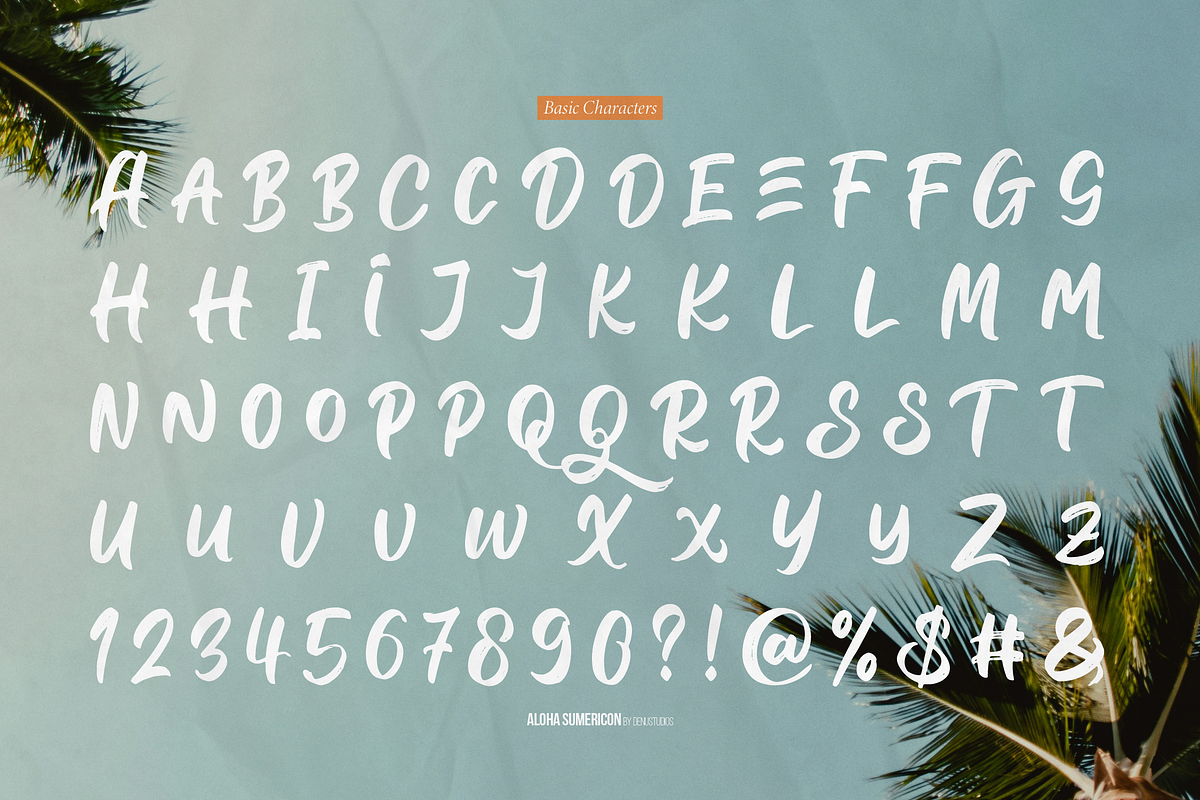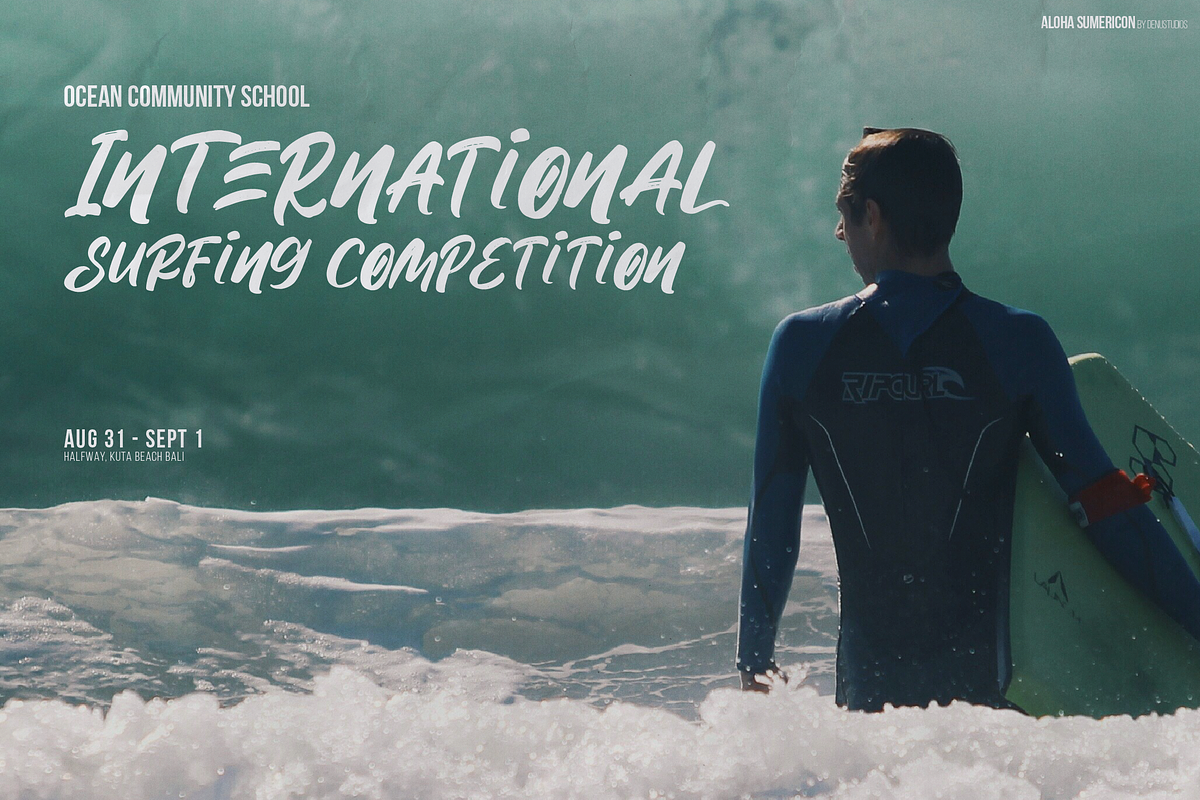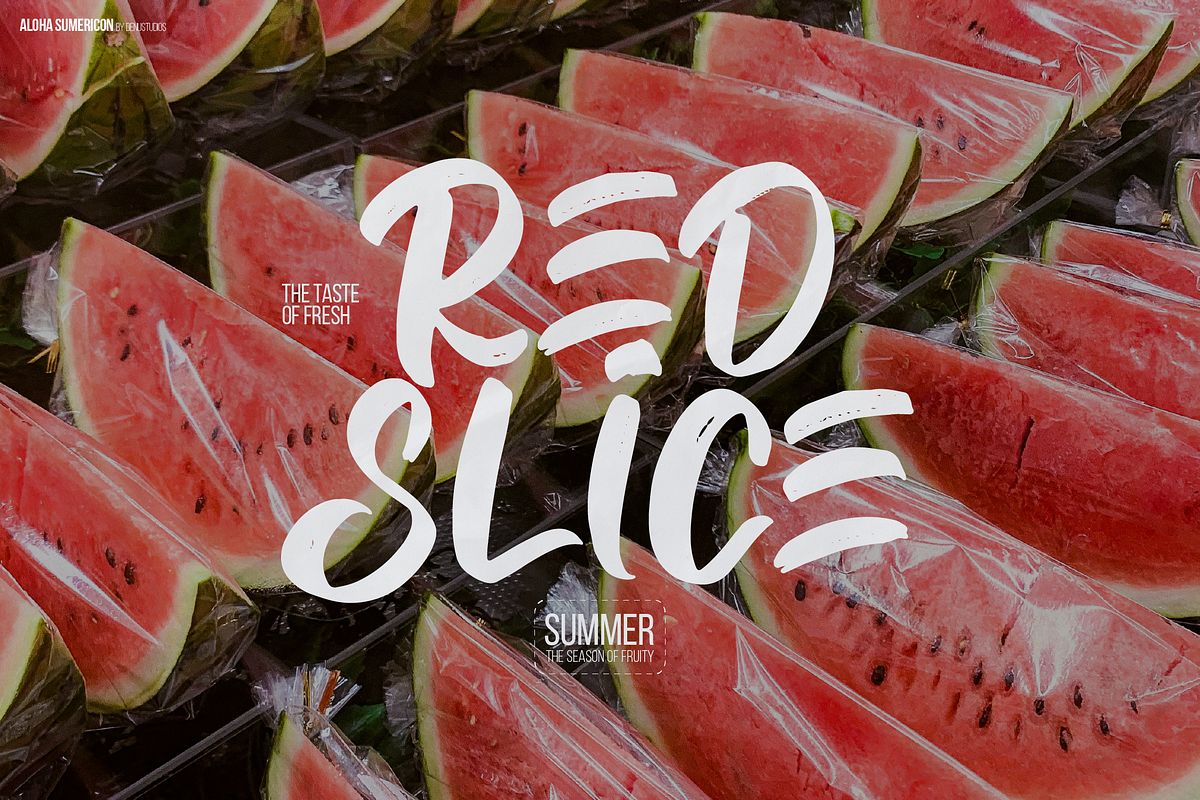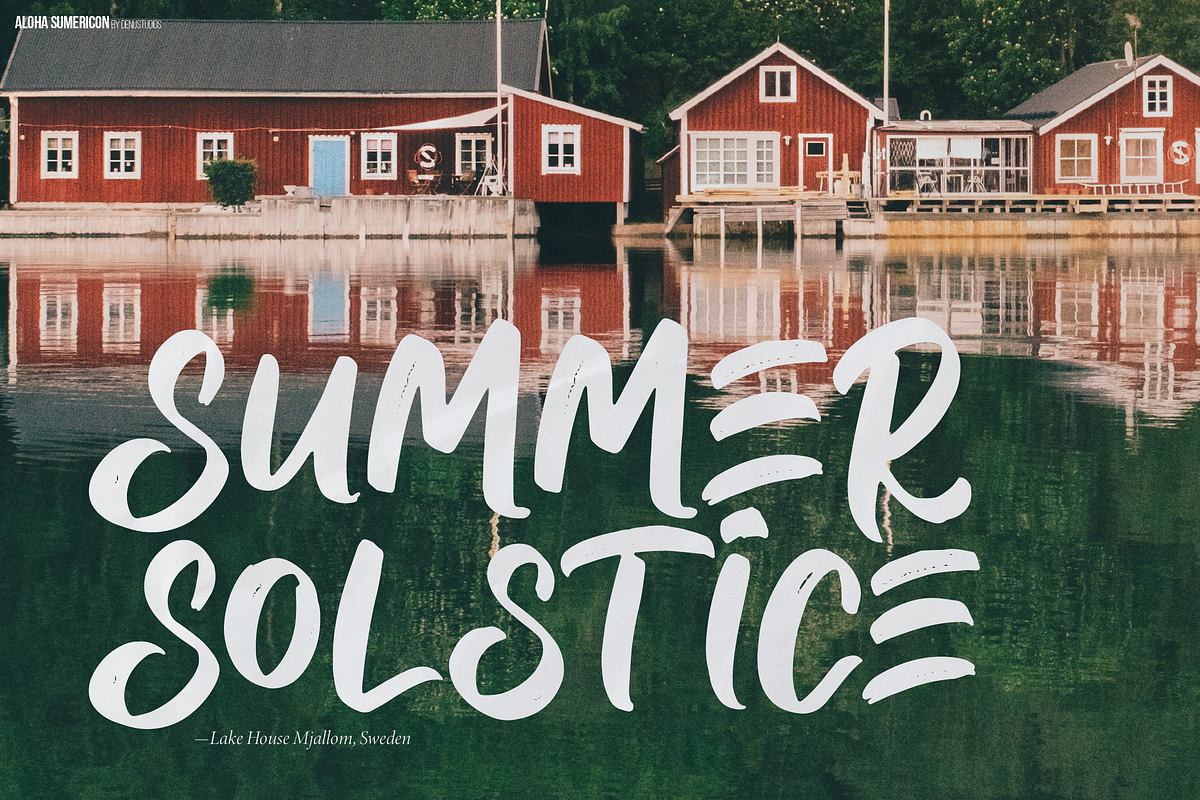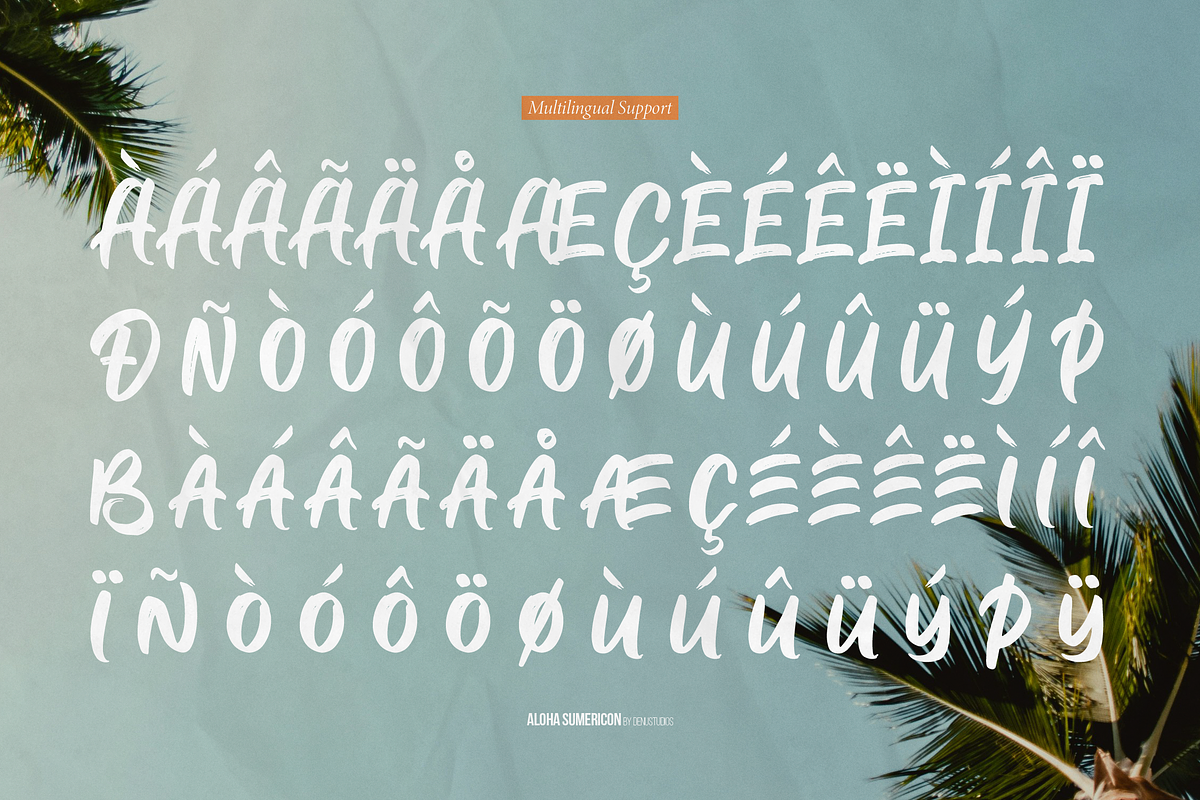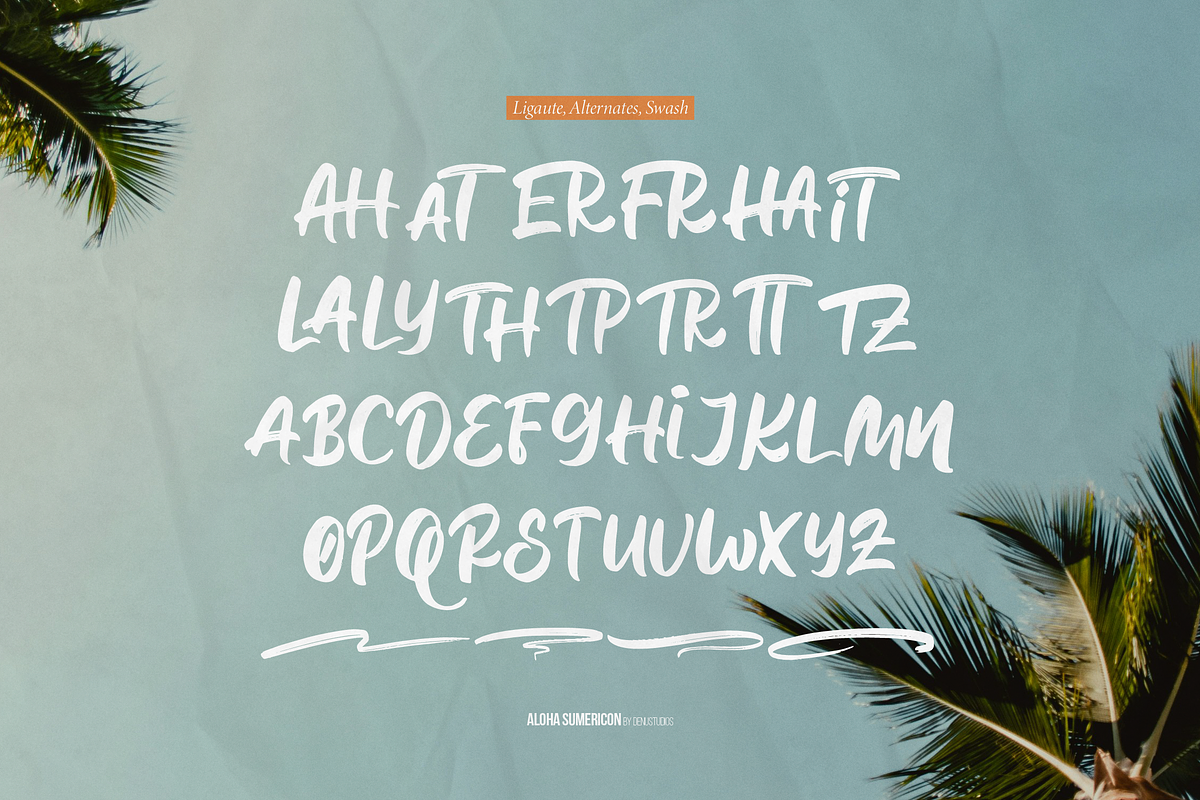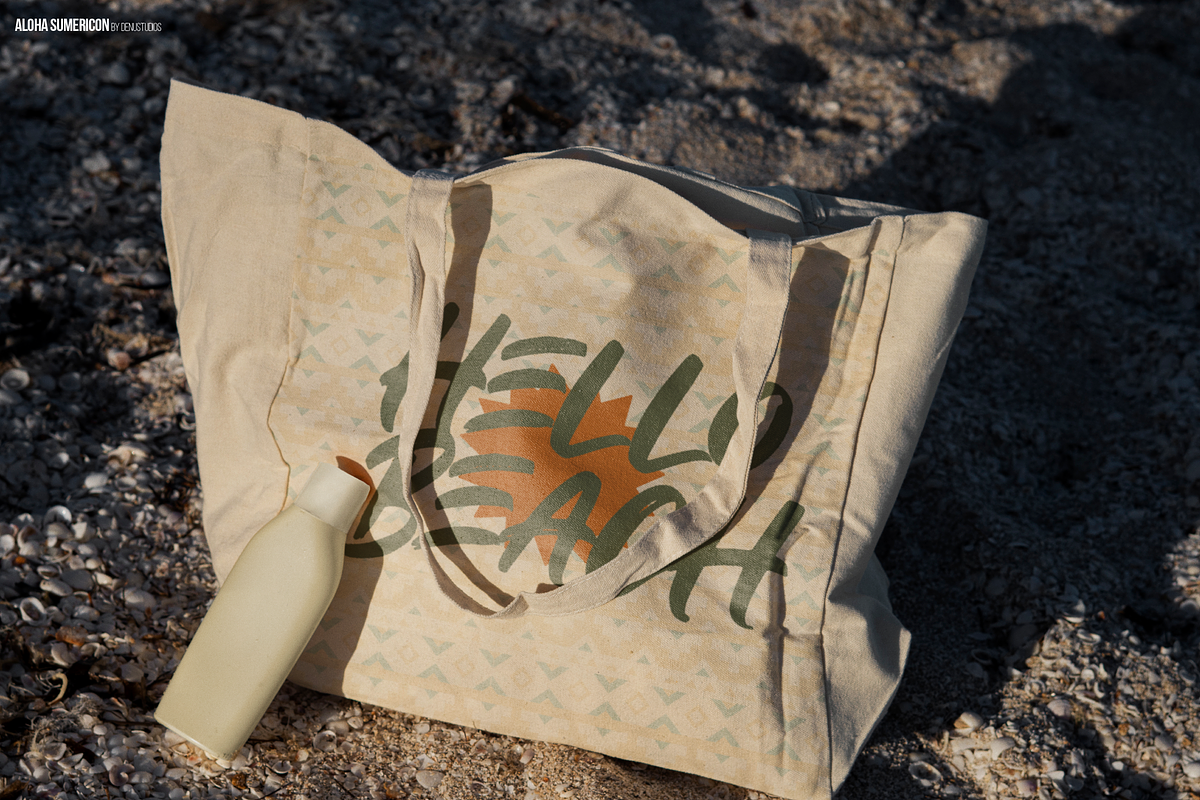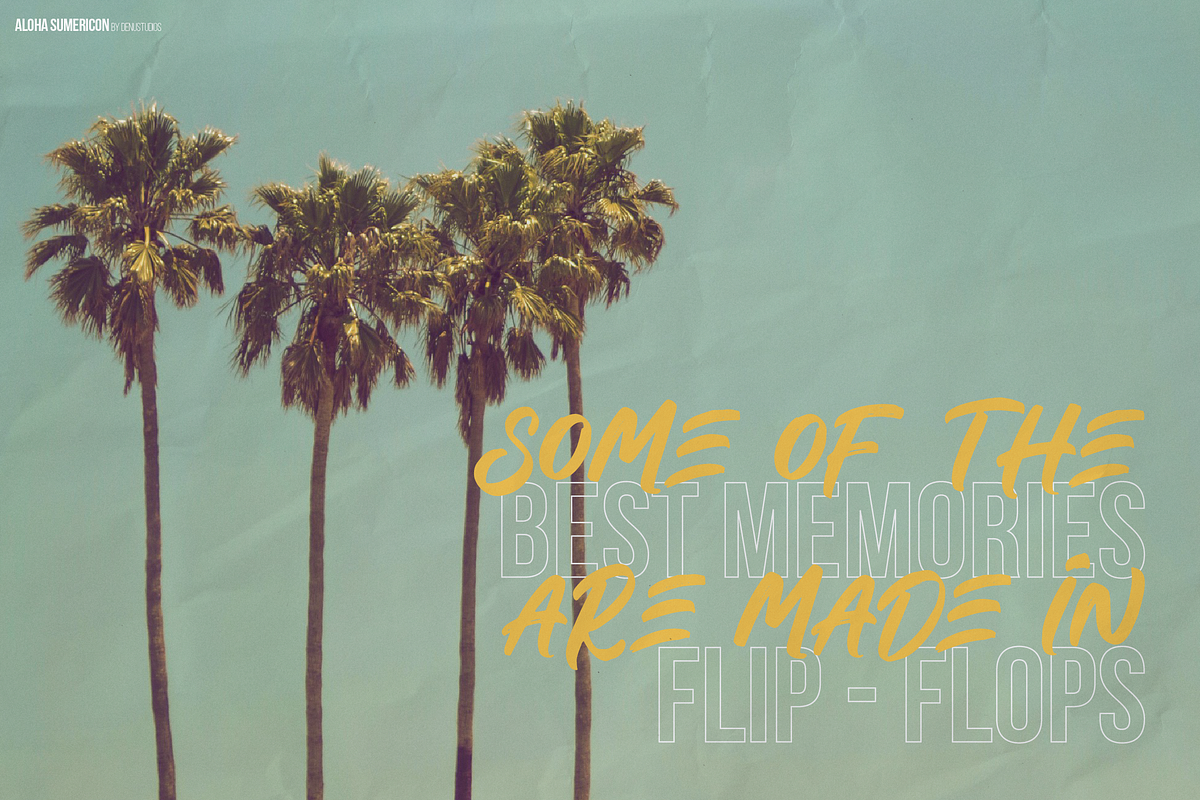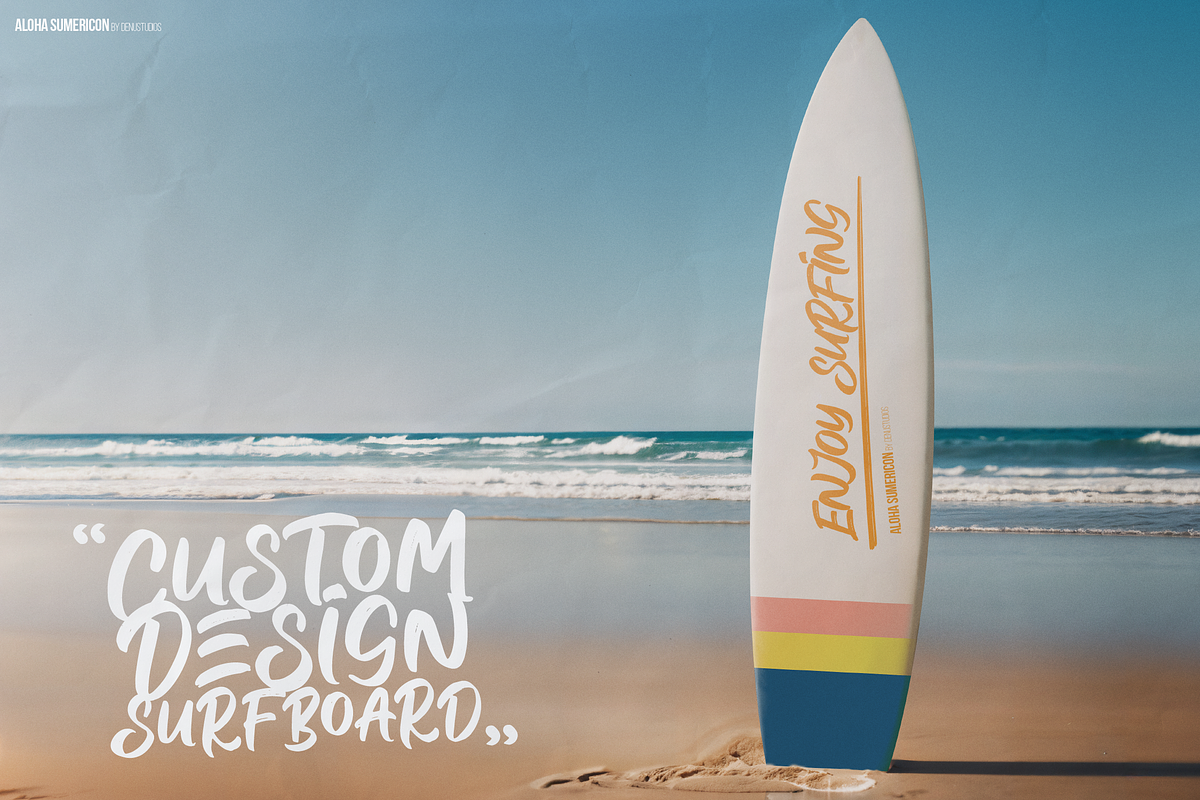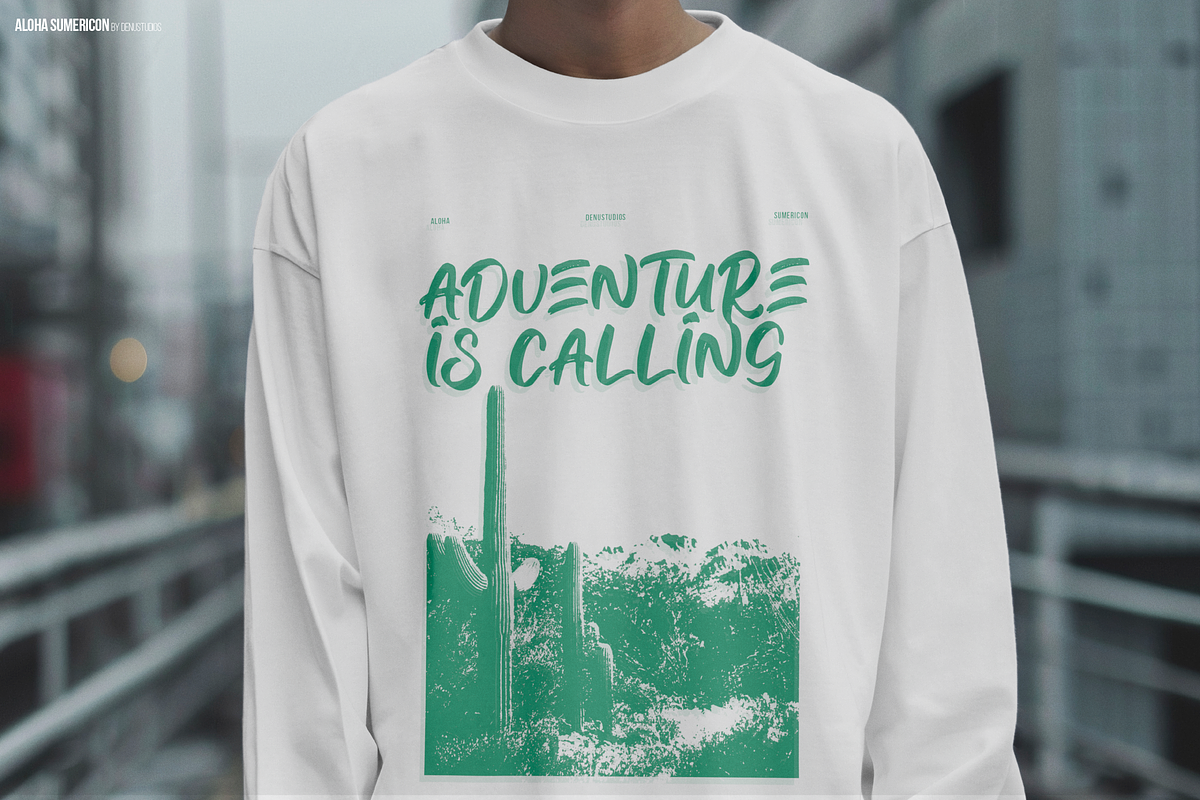
Aloha Sumericon | Hand Drawn Brush
Aloha Sumericon | Hand Drawn Brush Font, from Denustudios, suitable for any projects such as: logos, branding projects, homeware designs, product packaging, mugs, quotes, posters, shopping bags, t-shirts, book covers, name card, invitation cards, greeting cards, label, photography, watermark, special events, and all your other lovely projects that need a Hand Drawn Brush Font taste.